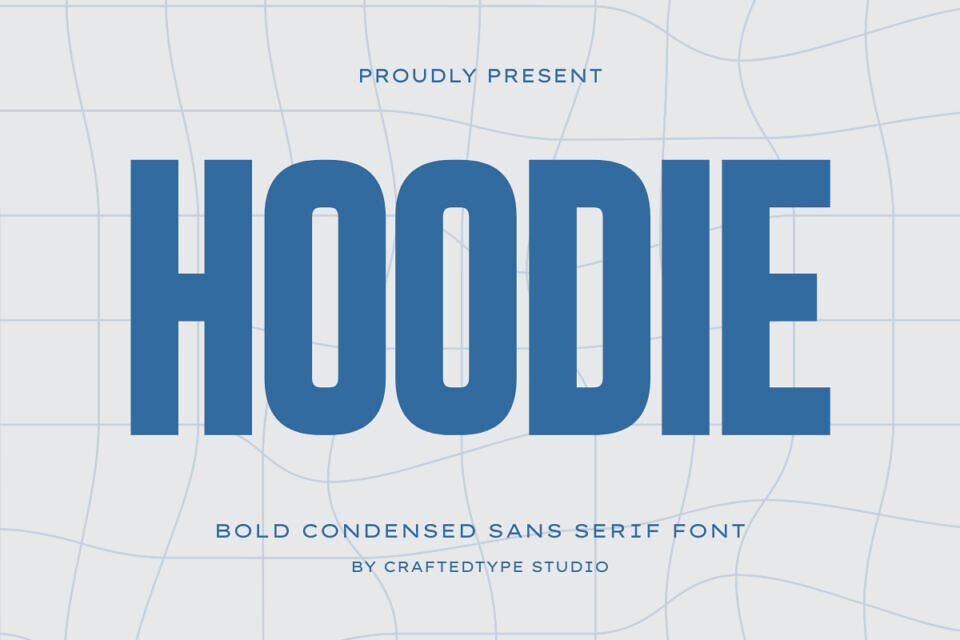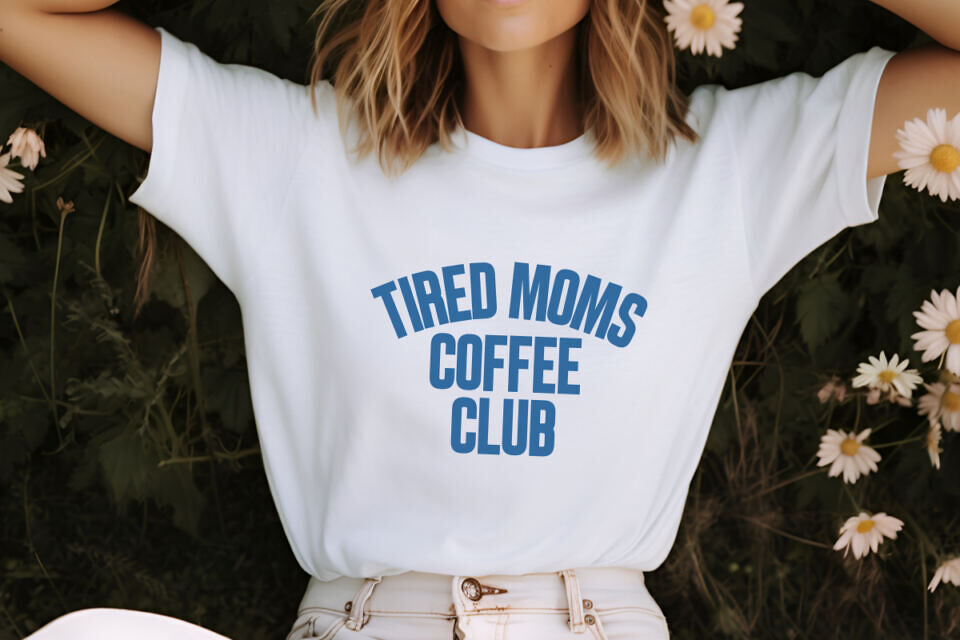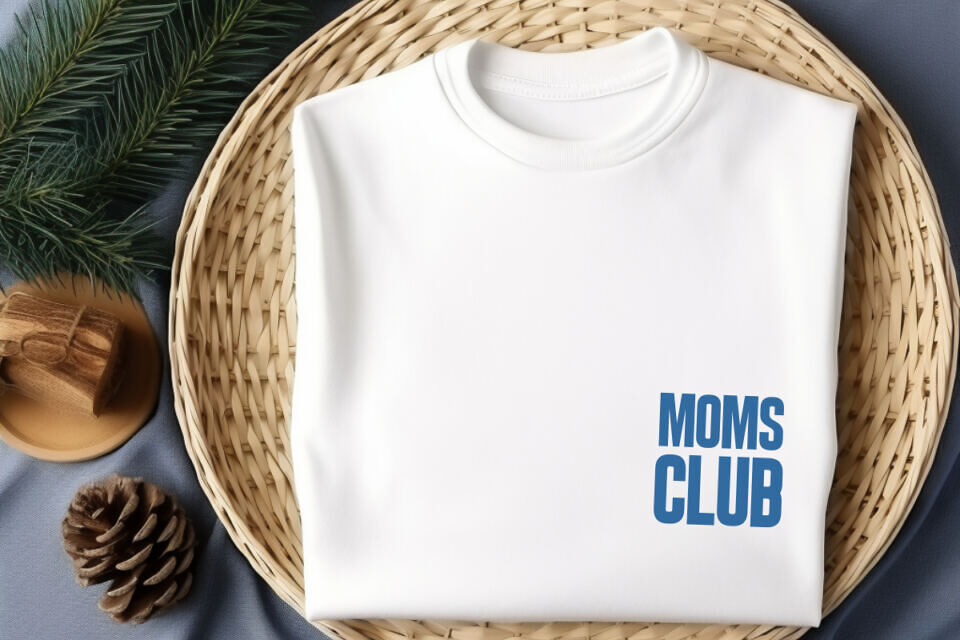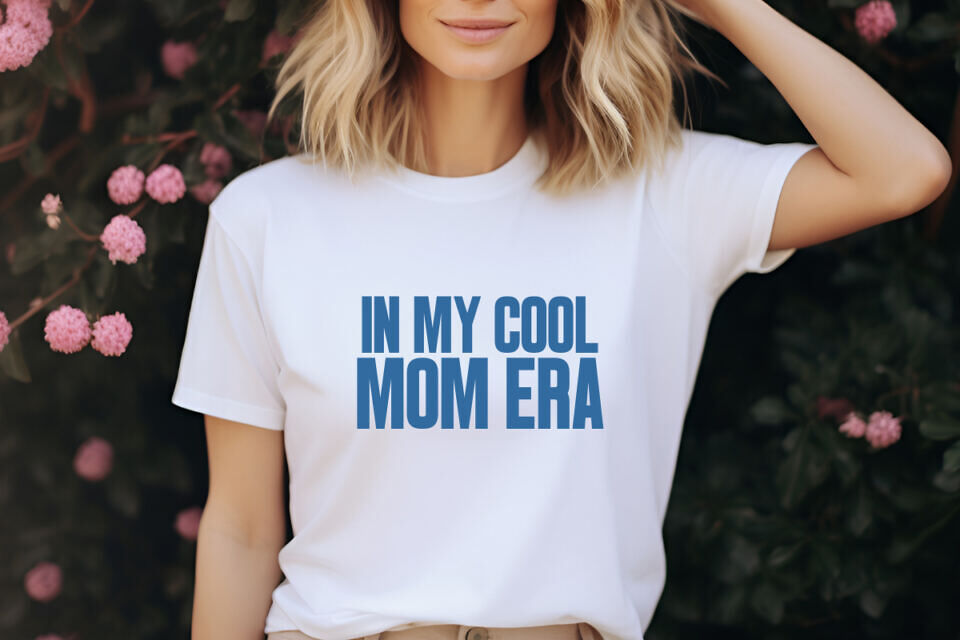
HOODIE is a powerful and commanding bold condensed sans serif font, meticulously crafted for high-impact visuals and urban aesthetics. Featuring tall, compact letterforms and thick, solid strokes, this font is the ultimate choice for creators aiming for a strong, industrial, or sporty look.
Designed with versatility in mind, HOODIE is perfect for Print On Demand (POD) projects such as streetwear apparel, sports jerseys, hoodies, and gym wear. Its clean yet aggressive presence also makes it ideal for bold headlines, cinematic film titles, modern branding, and social media graphics that need to grab attention instantly. Whether you’re designing for a professional sports team or a trendy clothing line, HOODIE provides a professional and energetic edge.